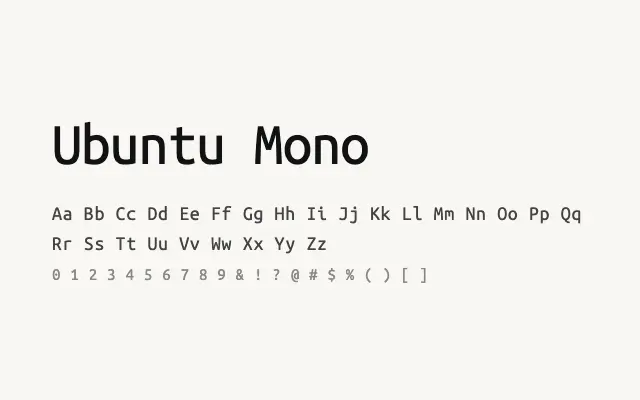
Ubuntu Mono
Ubuntu Mono is a humanist monospace typeface that brings warmth and personality to coding and terminal environments.
Unlike many coding fonts that prioritise neutrality, Ubuntu Mono retains the open apertures and friendly character of the Ubuntu family, making long sessions in text editors and terminals more comfortable. Its Cyrillic and Greek coverage is a genuine advantage for developers working in those script environments. The two-weight offering is modest but sufficient for most coding contexts.
A monospace companion to the Ubuntu family, carrying over the humanist warmth of the sans while meeting the fixed-width requirements of coding and terminal use. Cyrillic and Greek support makes it distinctive among coding fonts.